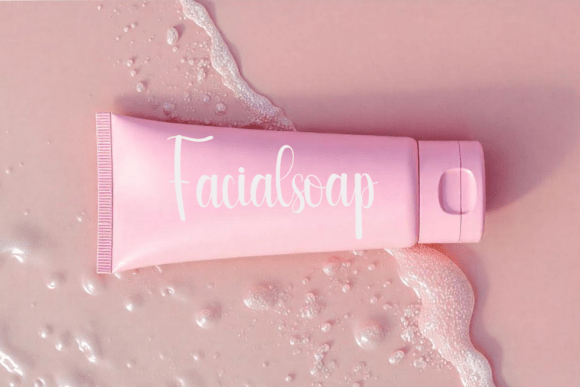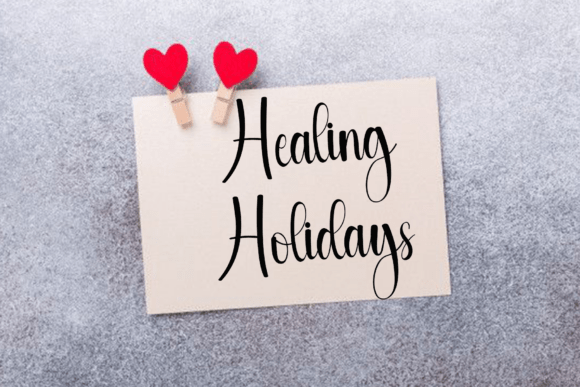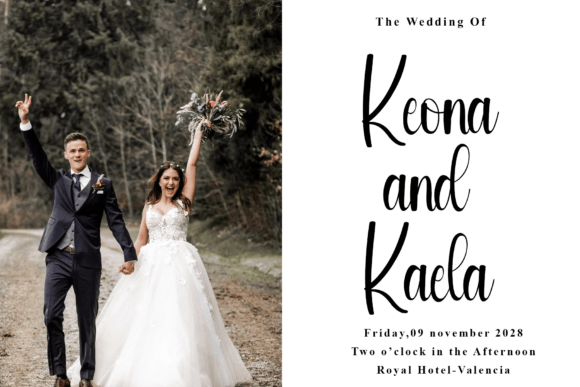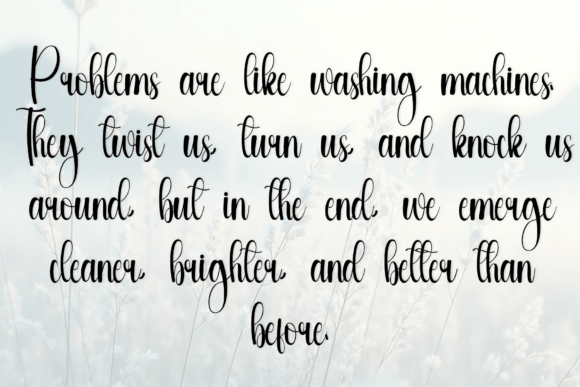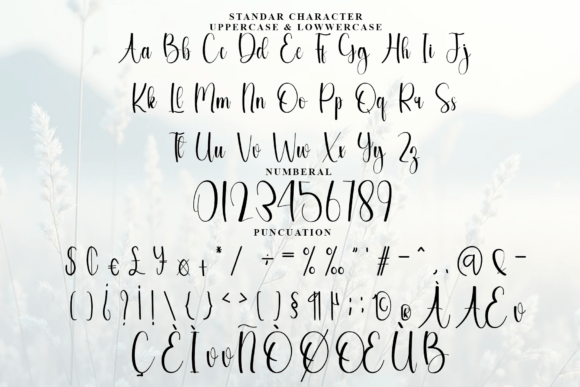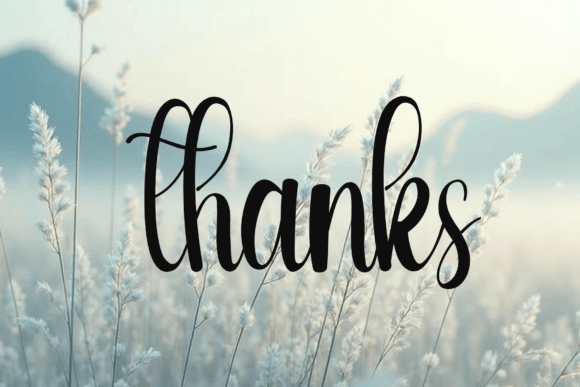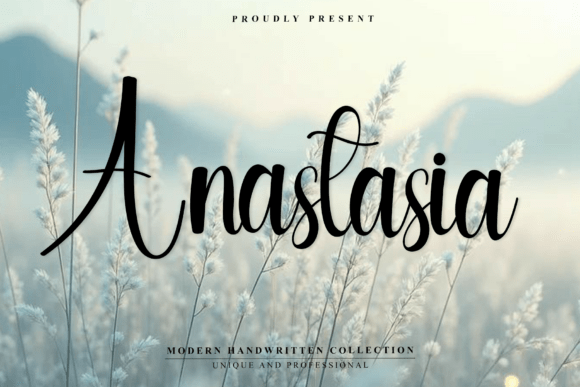
Introducing Anastasia Font: The Perfect Blend of Organic Charm and Typographic Sophistication
In the world of typography, few fonts manage to strike a balance between organic charm and strong typographic presence. Anastasia Font is one such exceptional typeface that seamlessly blends the two, making it an ideal choice for designers and crafters looking for a stylish and approachable font. In this article, we’ll dive into the unique features of Anastasia Font, its uses, and why it’s a must-have for your design projects.
The Unique Characteristics of Anastasia Font
Anastasia Font is a stylish handwritten font that boasts thick, solid strokes with a distinct “bouncy” rhythm. This unique characteristic gives it a friendly and approachable character that’s hard to resist. The font’s well-balanced proportions ensure it remains impactful even in busy designs, making it perfect for a wide range of applications. Whether you’re working on outdoor lifestyle branding, organic product packaging, travel-themed graphics, or rustic event invitations, Anastasia Font is sure to make a statement.
A Part of the “Unique and Professional” Collection
Anastasia Font is part of the “Unique and Professional” collection, a curated selection of typefaces designed to help designers and crafters create stunning visual content. This collection is all about providing high-quality fonts that are both stylish and versatile, making it easy to find the perfect font for your project. Anastasia Font is a shining example of this collection, offering a perfect blend of style, sophistication, and approachability.
Perfect for Outdoor Lifestyle Branding
Anastasia Font is perfectly suited for outdoor lifestyle branding, where a strong and adventurous look is essential. The font’s bold and solid strokes evoke a sense of confidence and ruggedness, making it ideal for brands that want to convey a sense of excitement and freedom. Whether you’re working on a logo, brochure, or website, Anastasia Font is sure to help you create a lasting impression.
Organic Product Packaging
For organic product packaging, Anastasia Font offers a unique and stylish solution. The font’s natural and handmade look resonates perfectly with the organic and eco-friendly vibe of many products. By using Anastasia Font, you can create packaging that not only stands out on store shelves but also communicates your brand’s values and personality.
Travel-Themed Graphics
Travel-themed graphics require a font that’s both adventurous and sophisticated. Anastasia Font fits the bill perfectly, with its bold and solid strokes evoking a sense of excitement and exploration. Whether you’re working on a brochure, poster, or website, Anastasia Font is sure to help you create stunning visual content that captures the essence of travel.
Rustic Event Invitations
Rustic event invitations require a font that’s both handmade and sophisticated. Anastasia Font offers the perfect solution, with its unique blend of organic charm and typographic sophistication. The font’s “bouncy” rhythm and solid strokes give it a friendly and approachable character that’s perfect for rustic event invitations, such as weddings, festivals, and outdoor gatherings.
Why Choose Anastasia Font?
So why choose Anastasia Font for your design projects? Here are just a few reasons:
- Unique and stylish: Anastasia Font offers a unique and stylish look that’s sure to make your designs stand out.
- Versatile: The font is versatile and can be used for a wide range of applications, from outdoor lifestyle branding to rustic event invitations.
- Well-balanced proportions: Anastasia Font has well-balanced proportions that ensure it remains impactful even in busy designs.
- High-quality: As part of the “Unique and Professional” collection, Anastasia Font is a high-quality typeface designed to help you create stunning visual content.
In conclusion, Anastasia Font is a stylish handwritten font that blends organic charm with a strong typographic presence. Its unique characteristics, versatility, and high-quality design make it a must-have for designers and crafters looking for a font that can help them create stunning visual content. Whether you’re working on outdoor lifestyle branding, organic product packaging, travel-themed graphics, or rustic event invitations, Anastasia Font is the perfect choice.